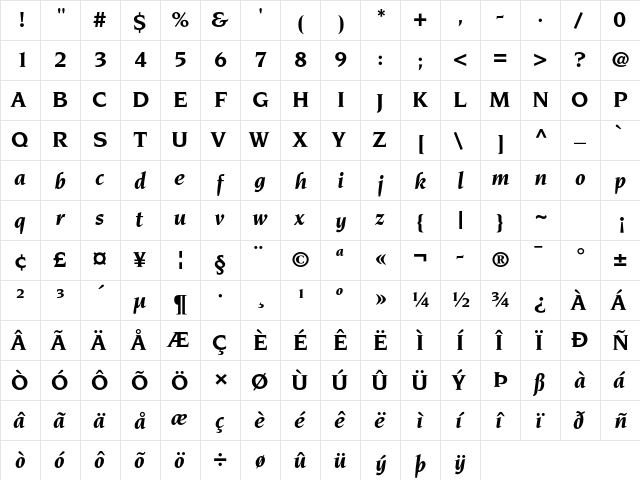
ITC Novarese Std Bold Italic
Bold Italic ·  Aldo Novarese ·
Design Context for ITC Novarese Std Typeface
ITC Novarese Std offers clean, dependable letterforms without strong stylistic allegiance, making it a practical choice for designers who need flexibility. Its italic angle brings a sense of urgency and motion to the letterforms. Its bold stroke weight gives it real presence on the page.
Pro Tip: Try ITC Novarese Std for annotation and caption copy alongside an upright companion — the contrast in angle creates a dynamic but ordered typographic system.